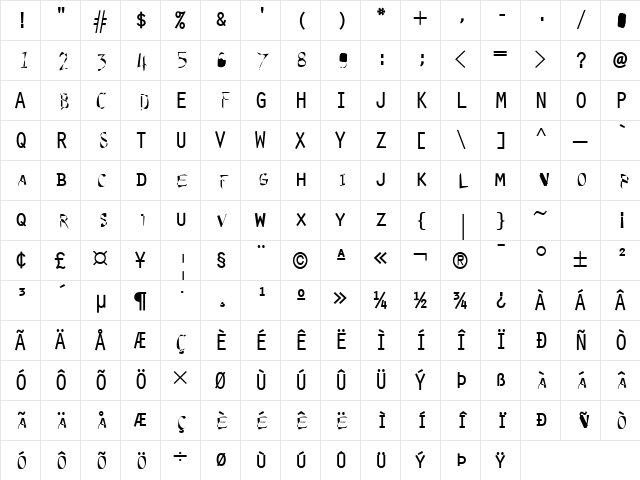
Outsidein Medium Free Font
Outsidein Medium
Design Context for Outsidein
Outsidein is a composed and adaptable typeface that performs quietly and consistently across a wide range of design contexts.